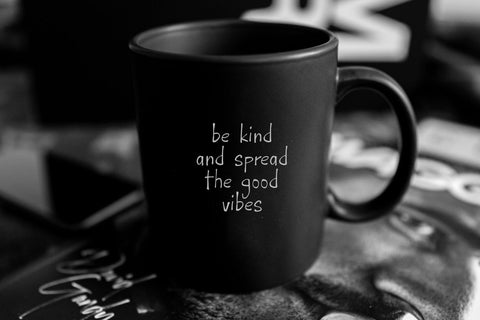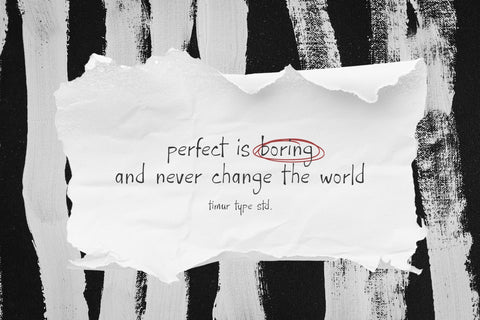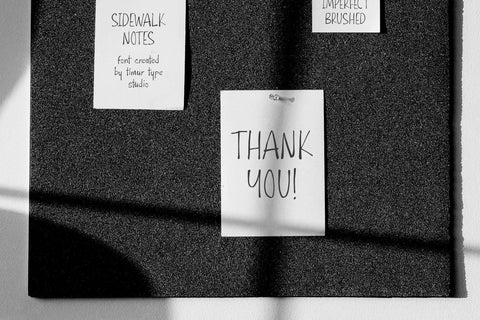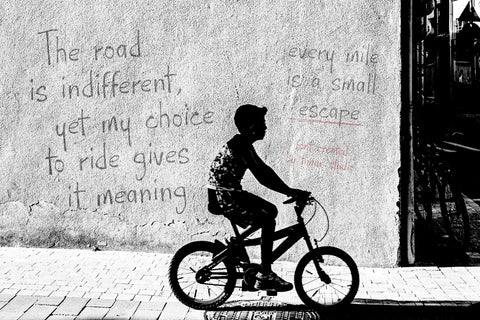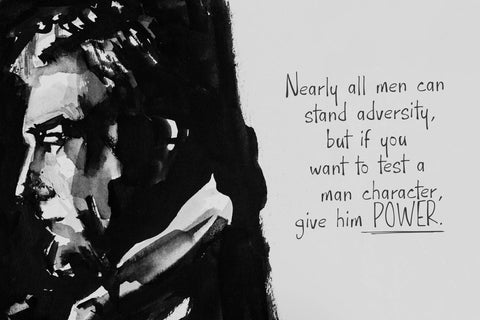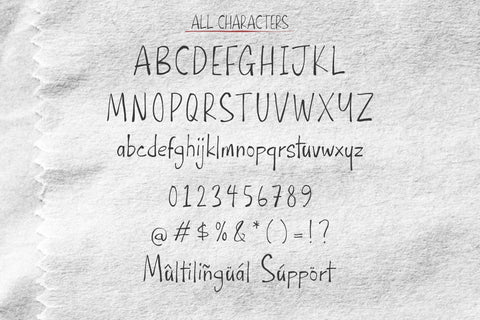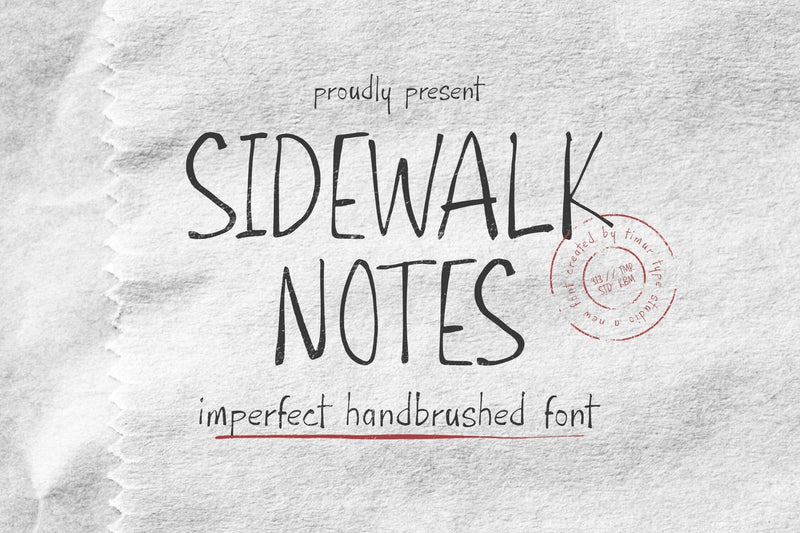
Sidewalk Notes - Imperfect Handbrushed Font
Sidewalk Notes is a Imperfect Handbrushed Font
This font is an imperfect handbrushed font that captures the spontaneous, textured look of casual chalk or paint lettering on urban surfaces. With its irregular strokes, uneven edges, and organic flow, it evokes the feel of handwritten graffiti or notes scrawled on a city sidewalk — giving designs a lively, authentic, and expressive. Perfect for projects that need a human touch and raw, artistic energy.
Sidewalk Notes Font also supports multilingualism